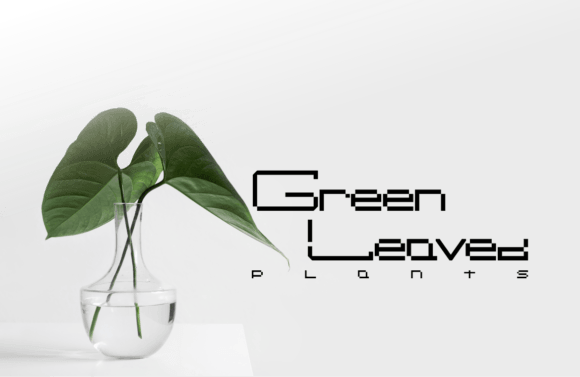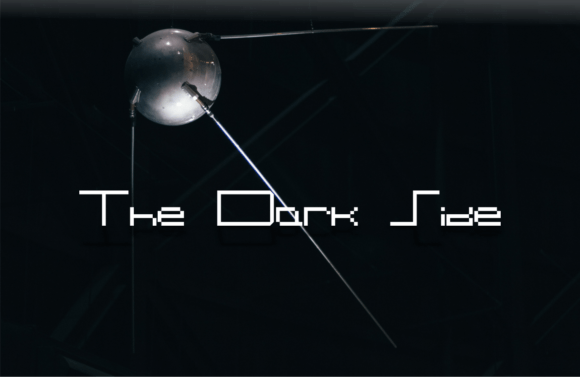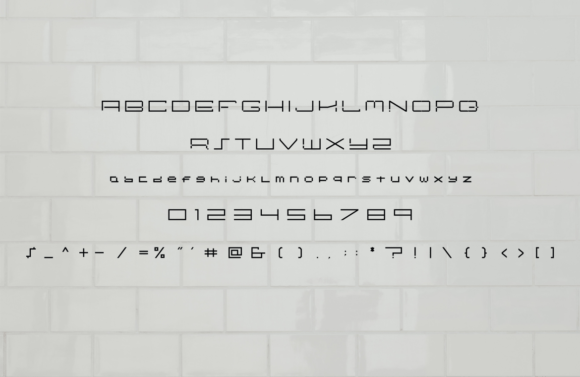
Unlocking Unique Typography: Introducing the Jacko Dapodik Font
Have you ever stared at a blank page, trying to find the perfect font to match your creative vision? The struggle is real, but what if we told you that your search is over? Our team of designers has been working tirelessly to bring you a game-changing font that’s about to revolutionize the way you present your products.
Meet the Jacko Dapodik Font, a unique and versatile font designed to complement your existing font library. With its unusual characters and sleek design, this font is perfect for adding a touch of sophistication to your presentations, reports, and marketing materials. Whether you’re a seasoned designer or a newcomer to the world of typography, the Jacko Dapodik Font is sure to be a valuable addition to your toolkit.
Key Features of Jacko Dapodik Font
- Font Style: Jacko Dapodik Font is a sans-serif font designed specifically for educational institutions, ideal for use in Dapodik software.
- Character Set: The font includes a comprehensive character set, including Latin, Cyrillic, and Greek alphabets, as well as a range of mathematical and special characters.
- Unique Characteristics: Jacko Dapodik Font is designed to be highly legible, even at small font sizes, making it an ideal choice for use in educational materials and presentations.
Jacko Dapodik Font Review
Overall, I have mixed feelings about the Jacko Dapodik Font. While it has some great features, there are also some limitations that hold it back from being a truly exceptional font.
- ✨ Unique and creative design: The font has a quirky and playful feel that can add a lot of character to your designs.
- ✨ High-quality glyphs: The font includes a wide range of glyphs, including many international characters, which is great for designers who need to work with diverse languages.
- ⚠️ Limited legibility: While the font is visually striking, it can be difficult to read, especially at smaller sizes. This may make it less suitable for body text or other applications where readability is crucial.
- ⚠️ Limited font weights: The font only comes in a few different weights, which can limit its versatility and make it harder to achieve the right level of contrast in your designs.
The Jacko Dapodik Font is a great choice for designers who want to add some personality to their work, but it may not be the best choice for projects that require high legibility or a wide range of font weights. With some careful selection and styling, it can still be a great addition to your design toolkit.
The Jacko Dapodik Font is a great choice for creating bold, eye-catching designs. Use it for:
- Infographics
- Posters
- Brochures
- Business cards
For the most out of the Jacko Dapodik Font, use it in conjunction with bright colors and
Comparison to Jacko Dapodik Font: Arial Rounded is more straightforward and lacks the rounded edges of Jacko Dapodik Font. It is also more readable in smaller sizes, making it a good choice for digital design.